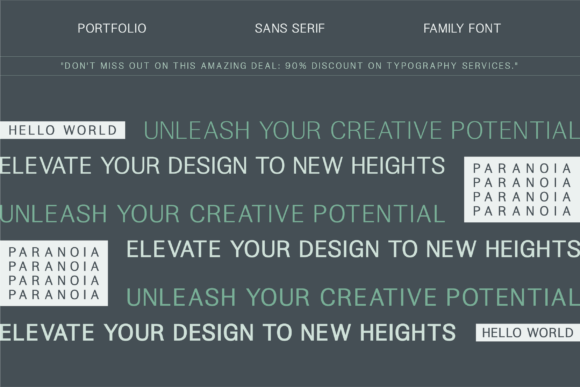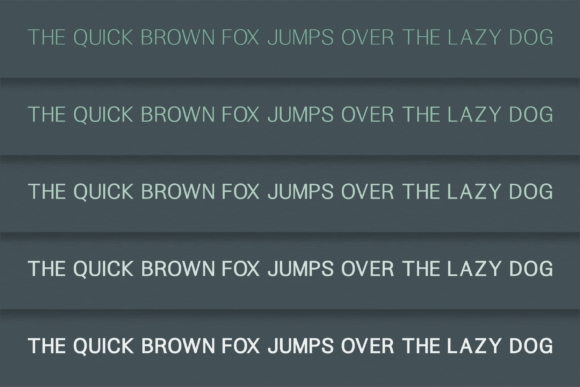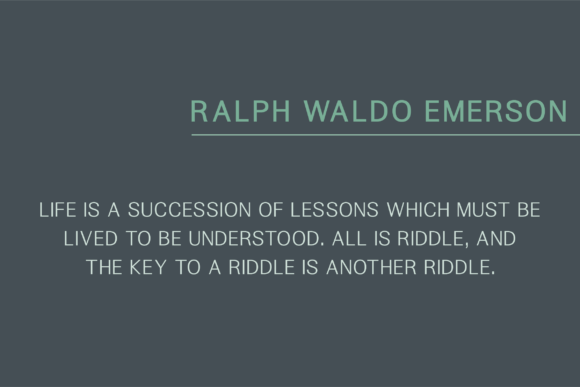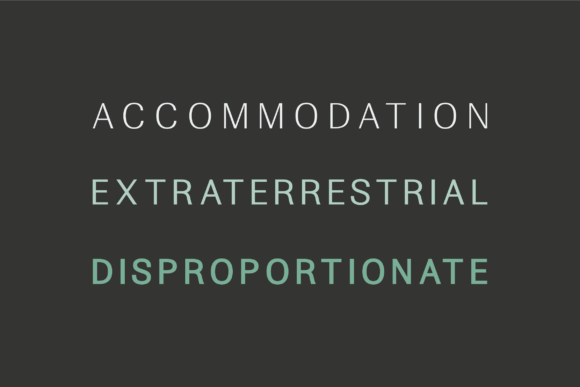
Introduction to Paranoia Font
Introducing Paranoia Font Family — A Masterpiece of Elegance and Modern.
Meet Paranoia Font, a meticulously crafted sans-serif font family that redefines modern design Featuring 5 distinct weights, it offers unparalleled versatility, seamlessly adapting to projects ranging from magazines and logos to film posters and beyond.
Key Features of Paranoia Font
Why Choose Paranoia Font?